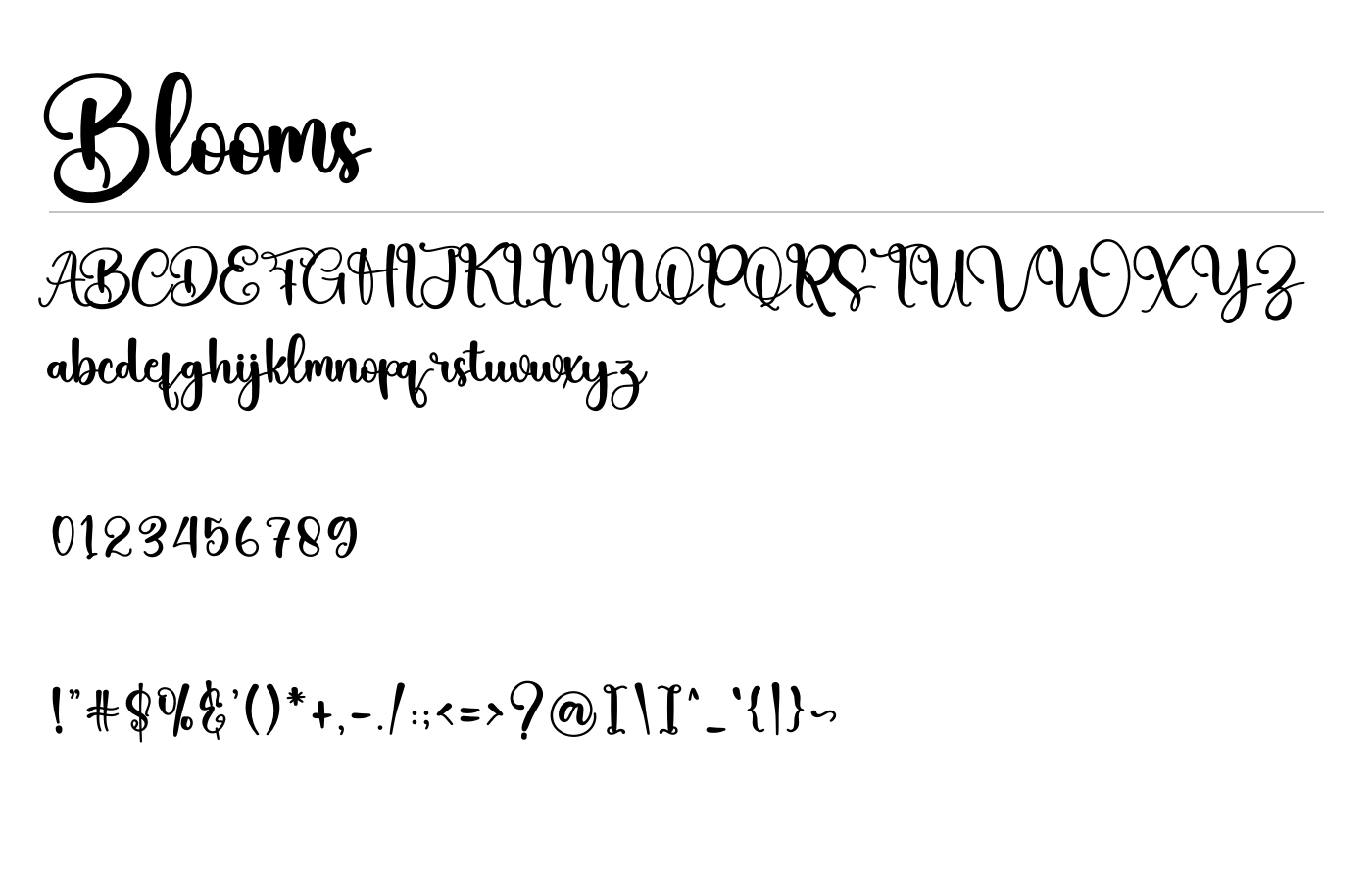
Blooms is a charming script font with a warm, flowing style that combines playful curves and elegant loops, giving it a handcrafted feel. Its moderate weight and unique letterforms make it perfect for adding a friendly, artistic touch to invitations, branding, and creative projects where personality and warmth are key. This font shines in designs that want to express creativity, elegance, and approachability.
Blooms Font
About Blooms Font